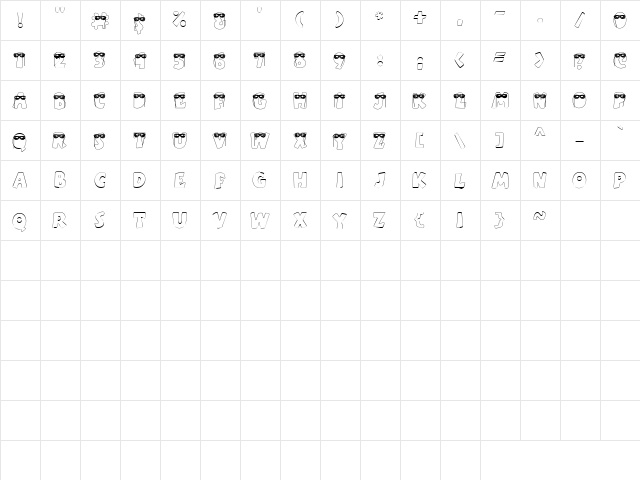
LD Masquerade Regular
Design Context for LD Masquerade Typeface
LD Masquerade is a composed and adaptable typeface that performs quietly and consistently across a wide range of design contexts.